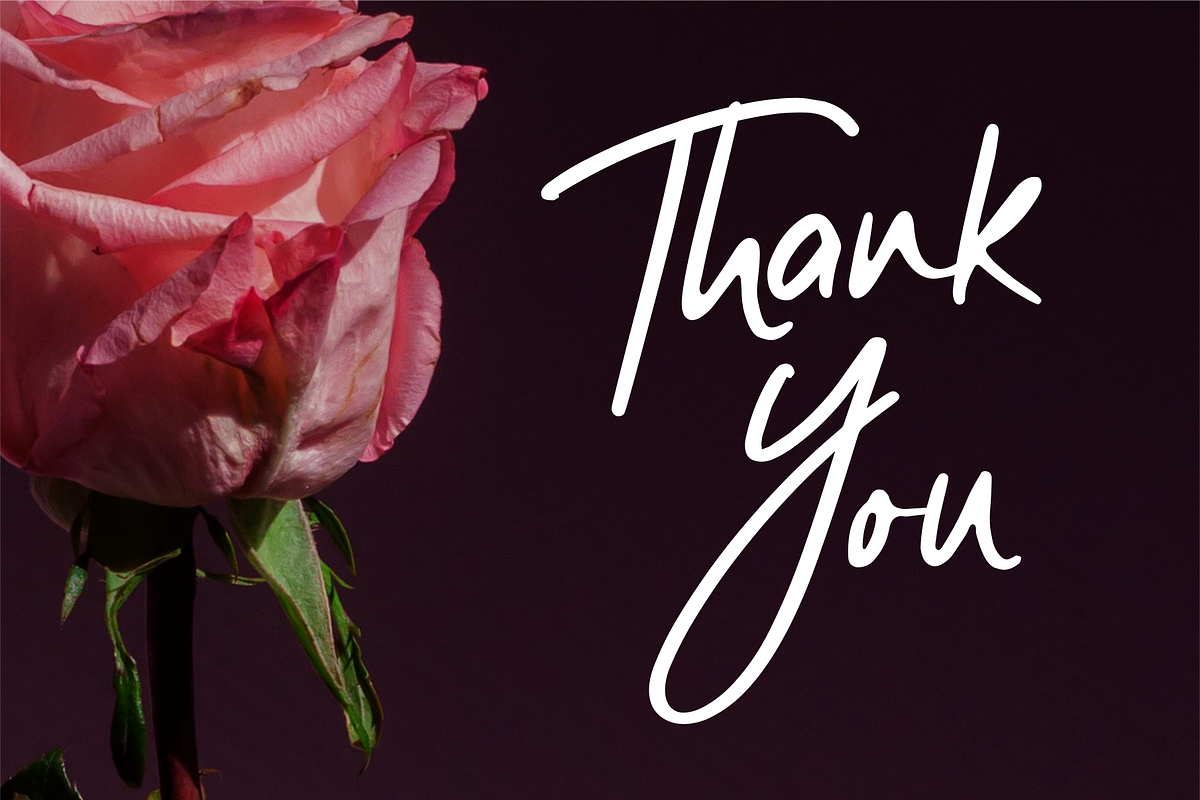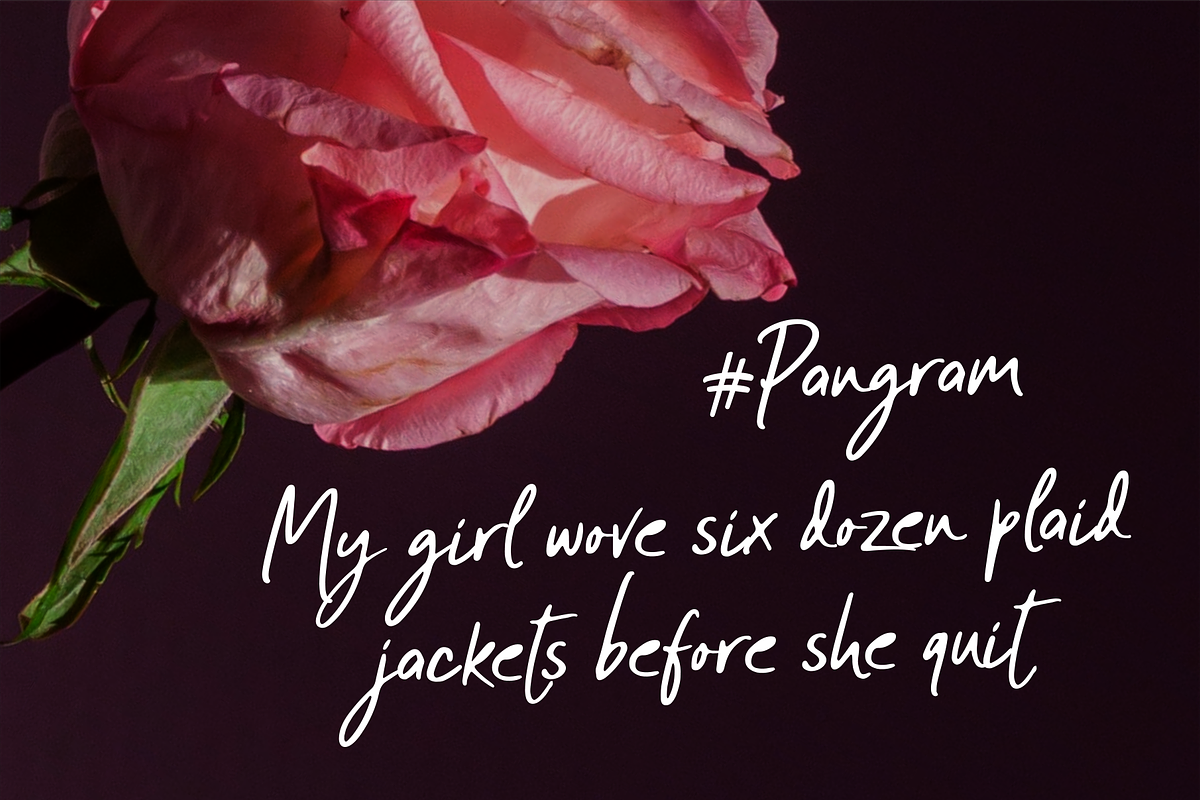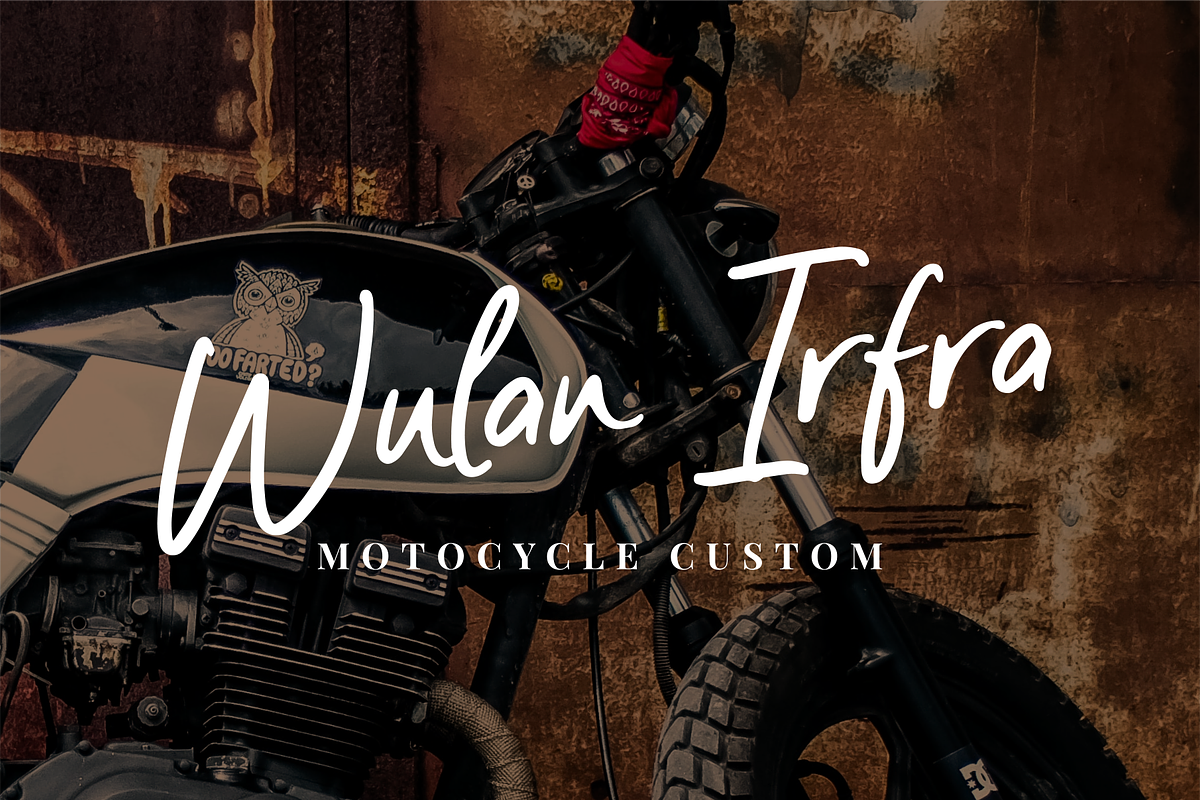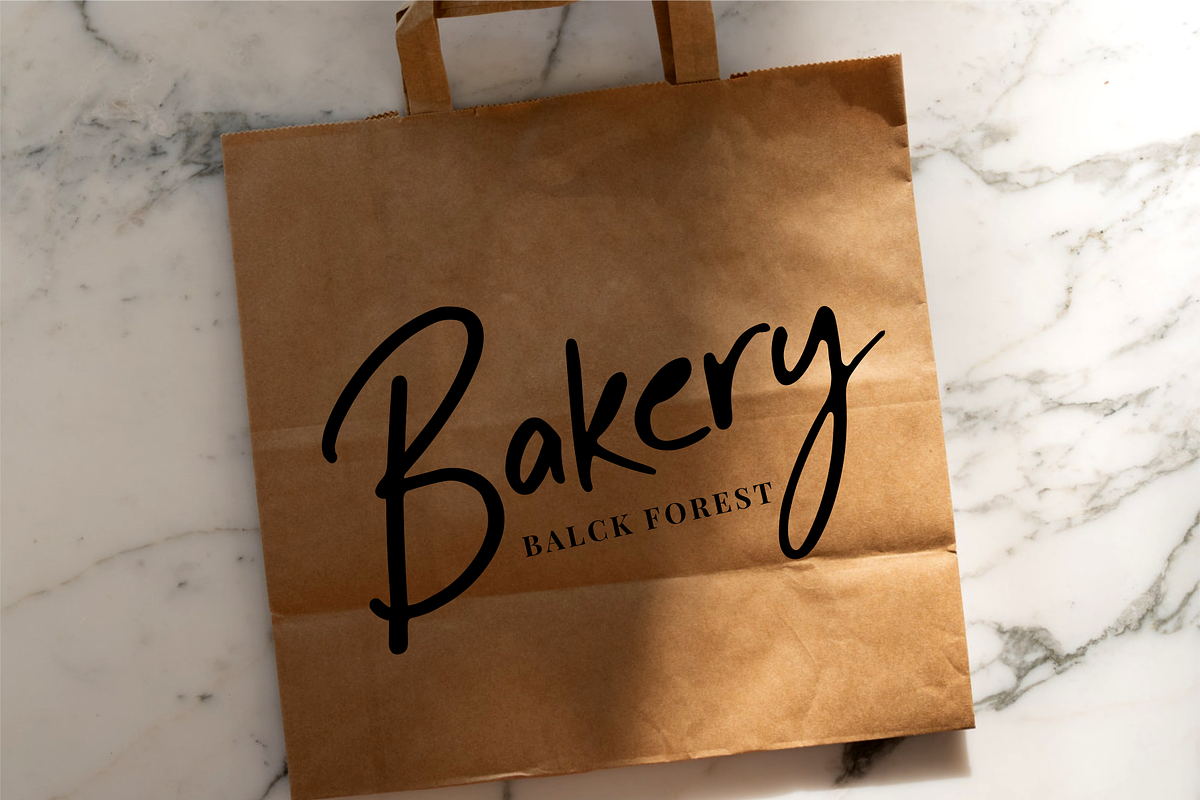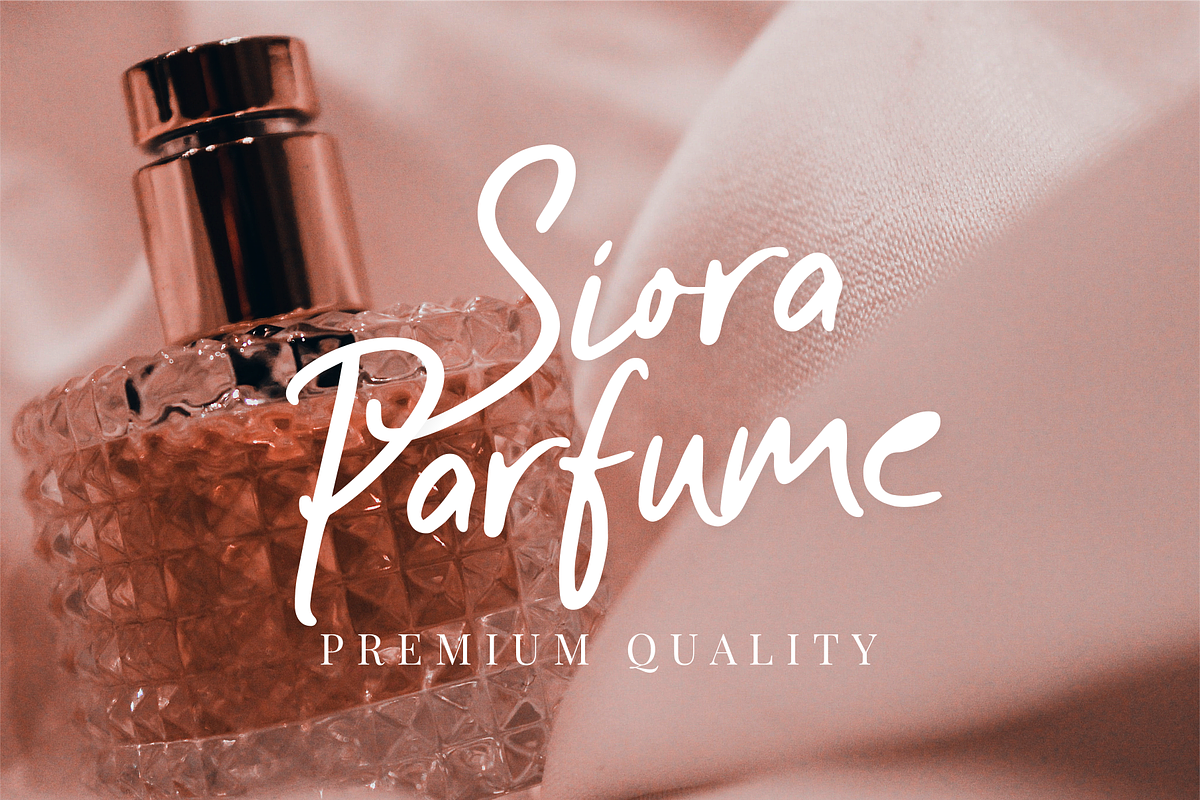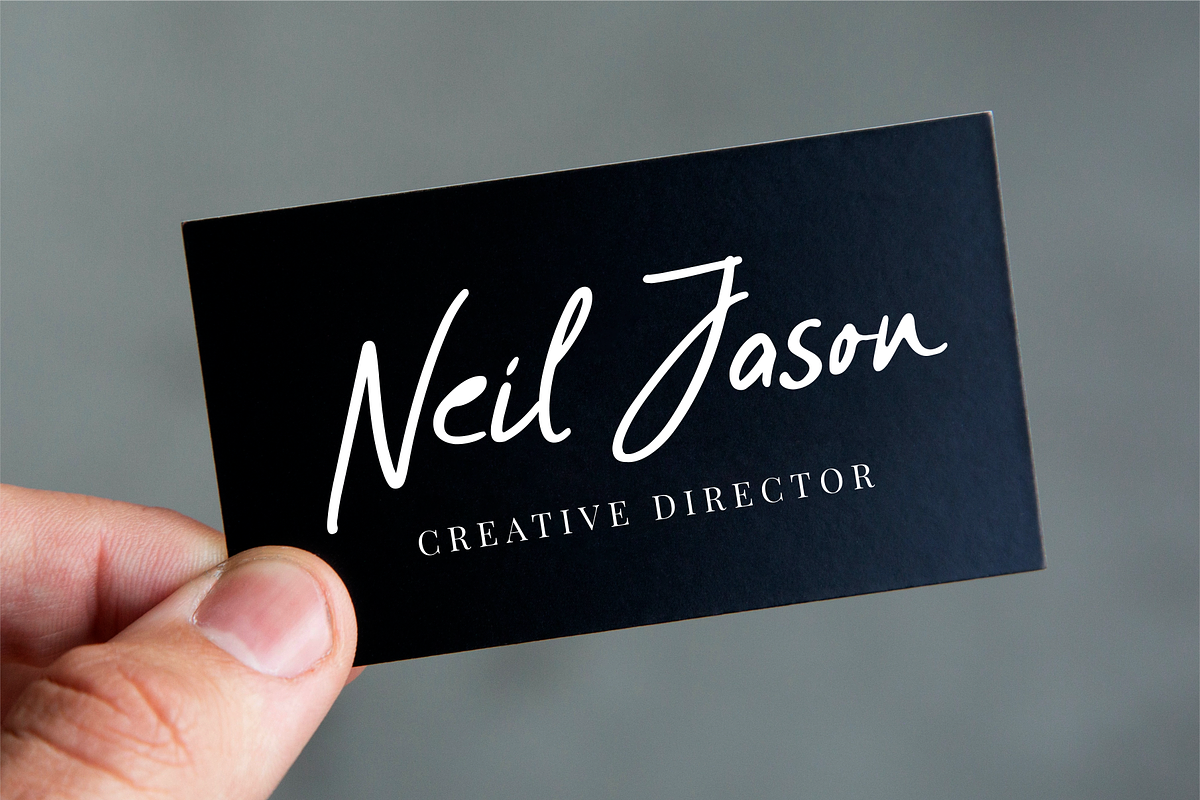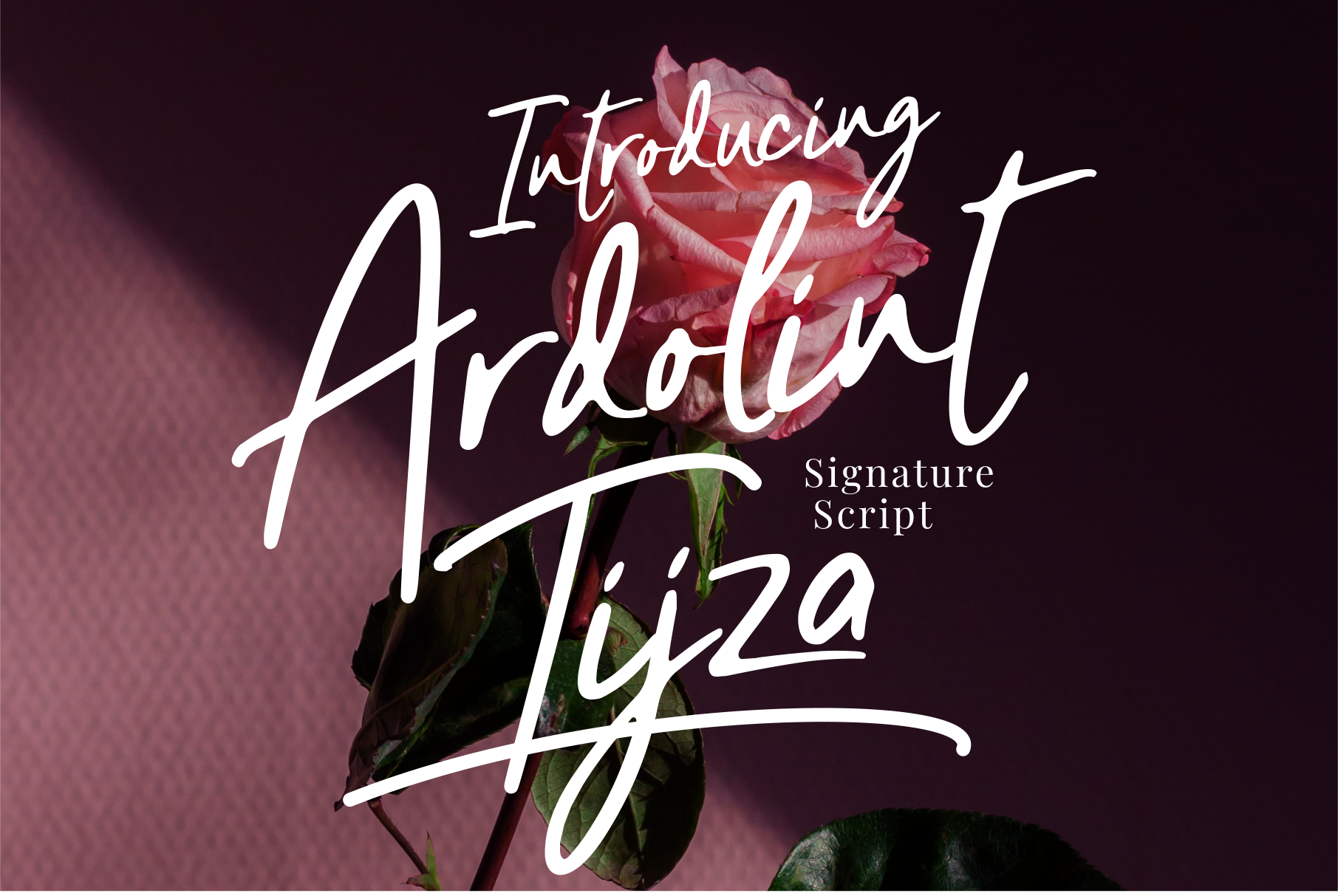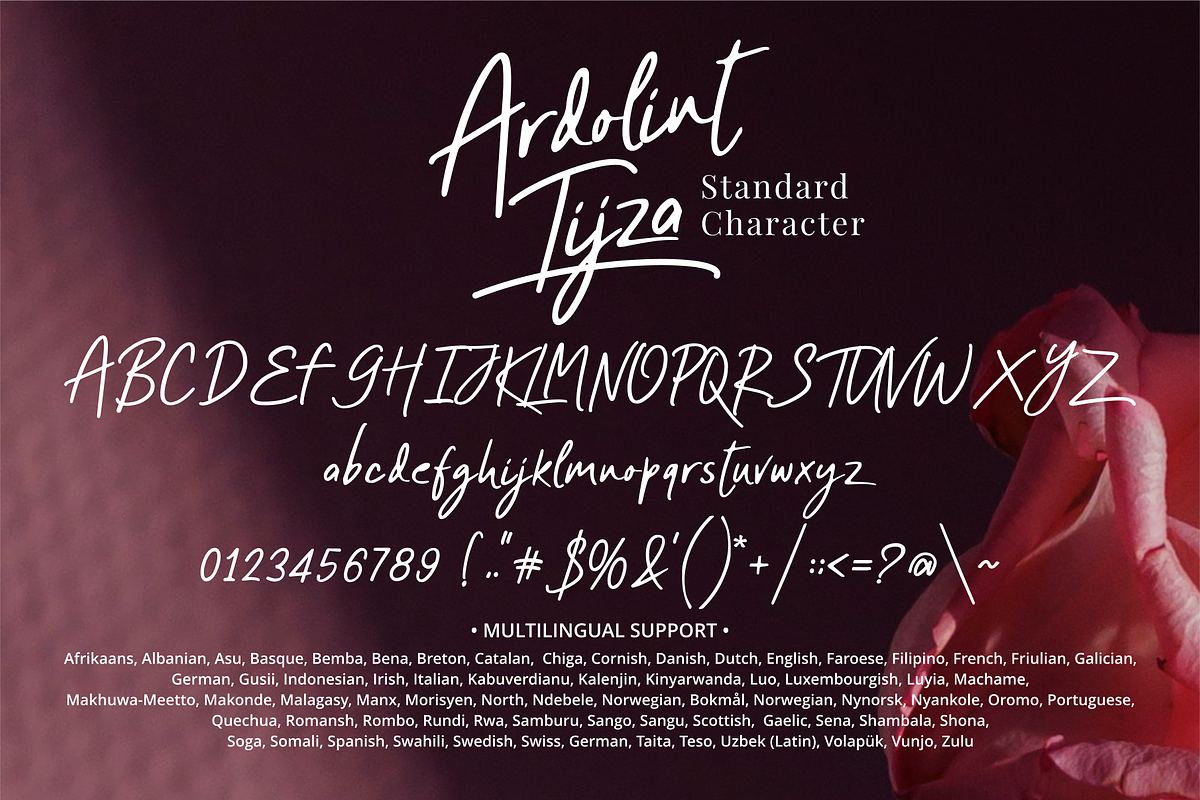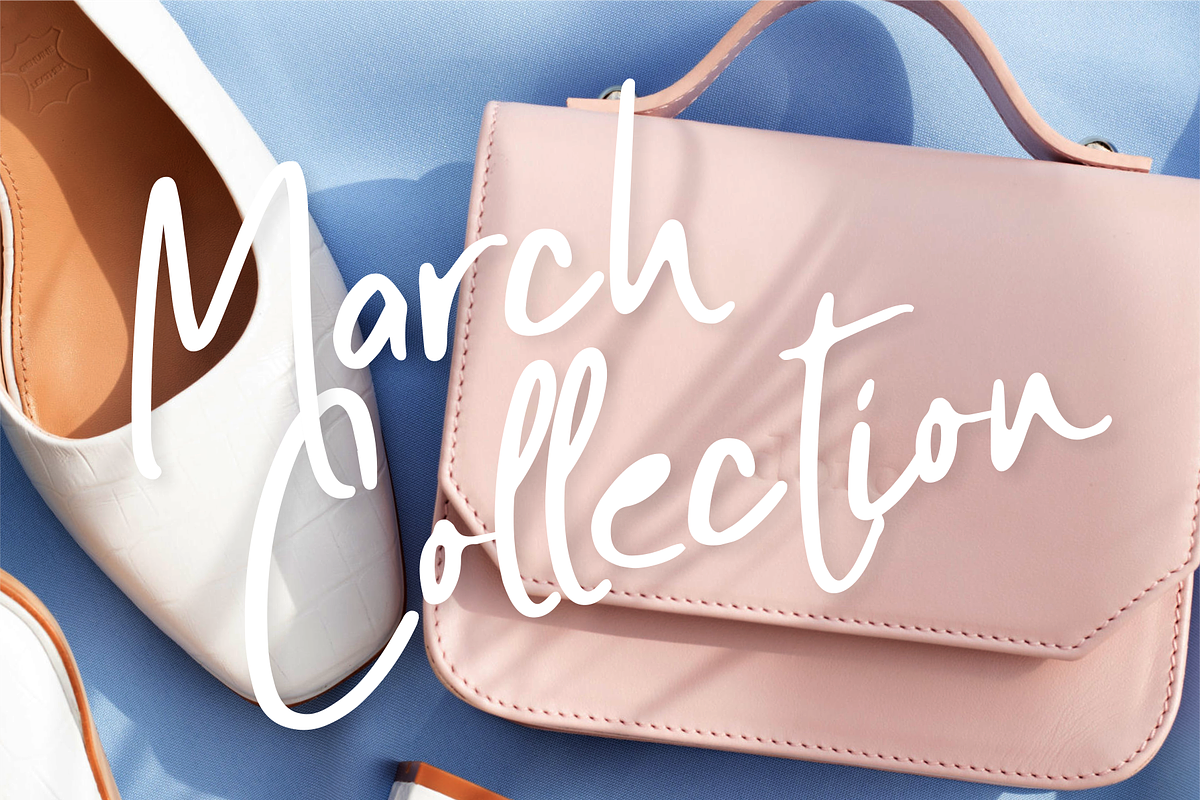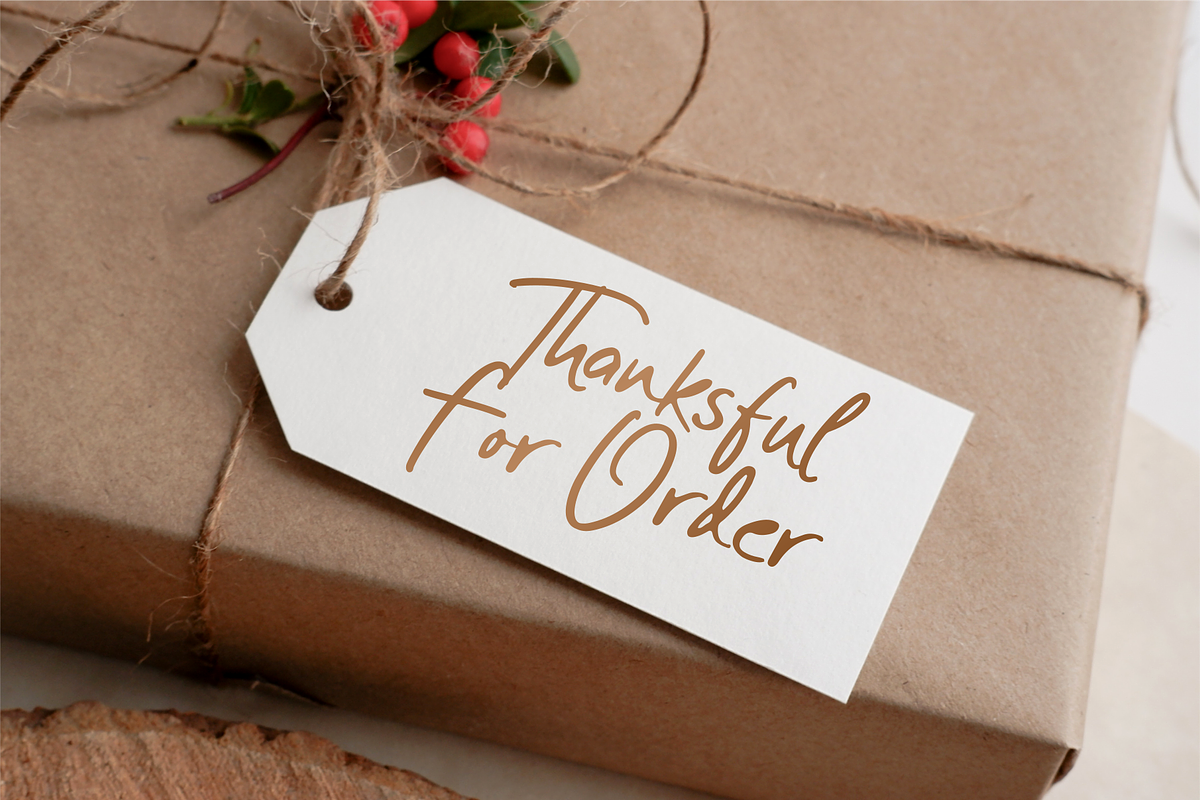
Ardolint Tijza Font
Ardolint Tijza is a paint brushed and delicate script font. It is suitable for any projects such as: logos, branding projects, label, photography, watermark, special events, and all your other lovely projects that need a beautiful script taste.